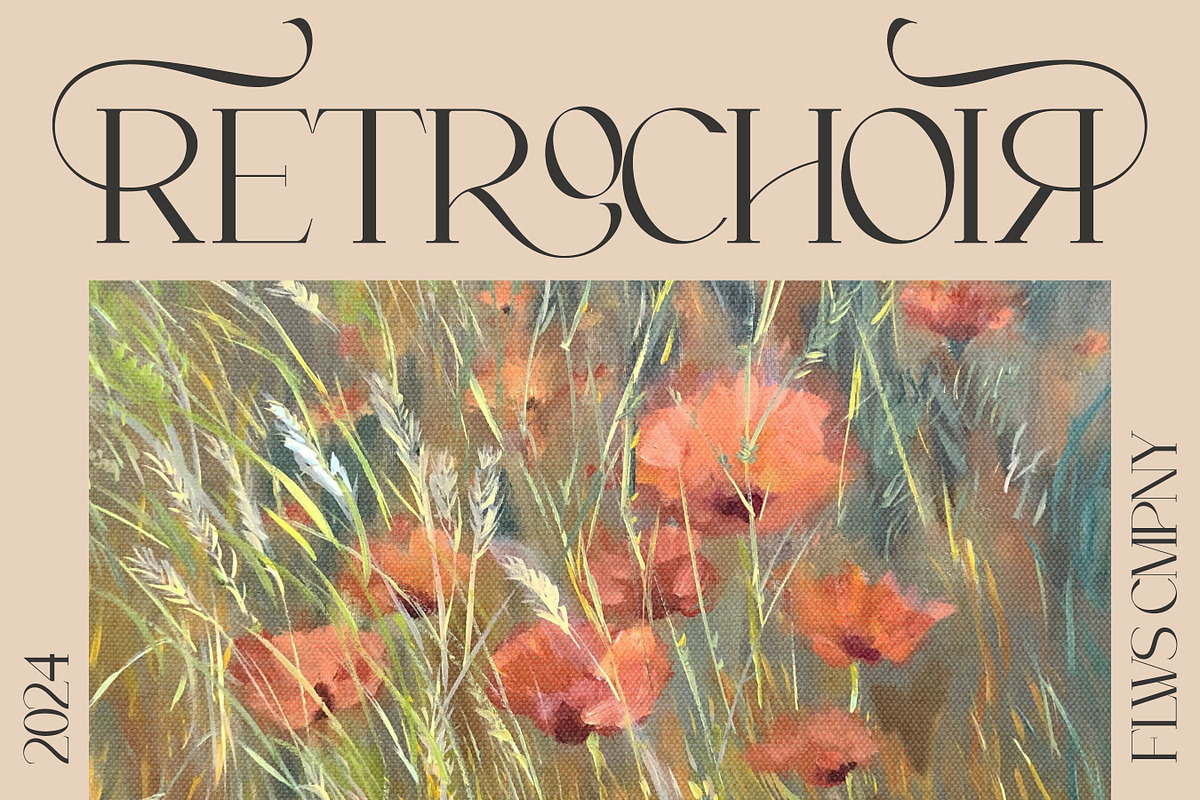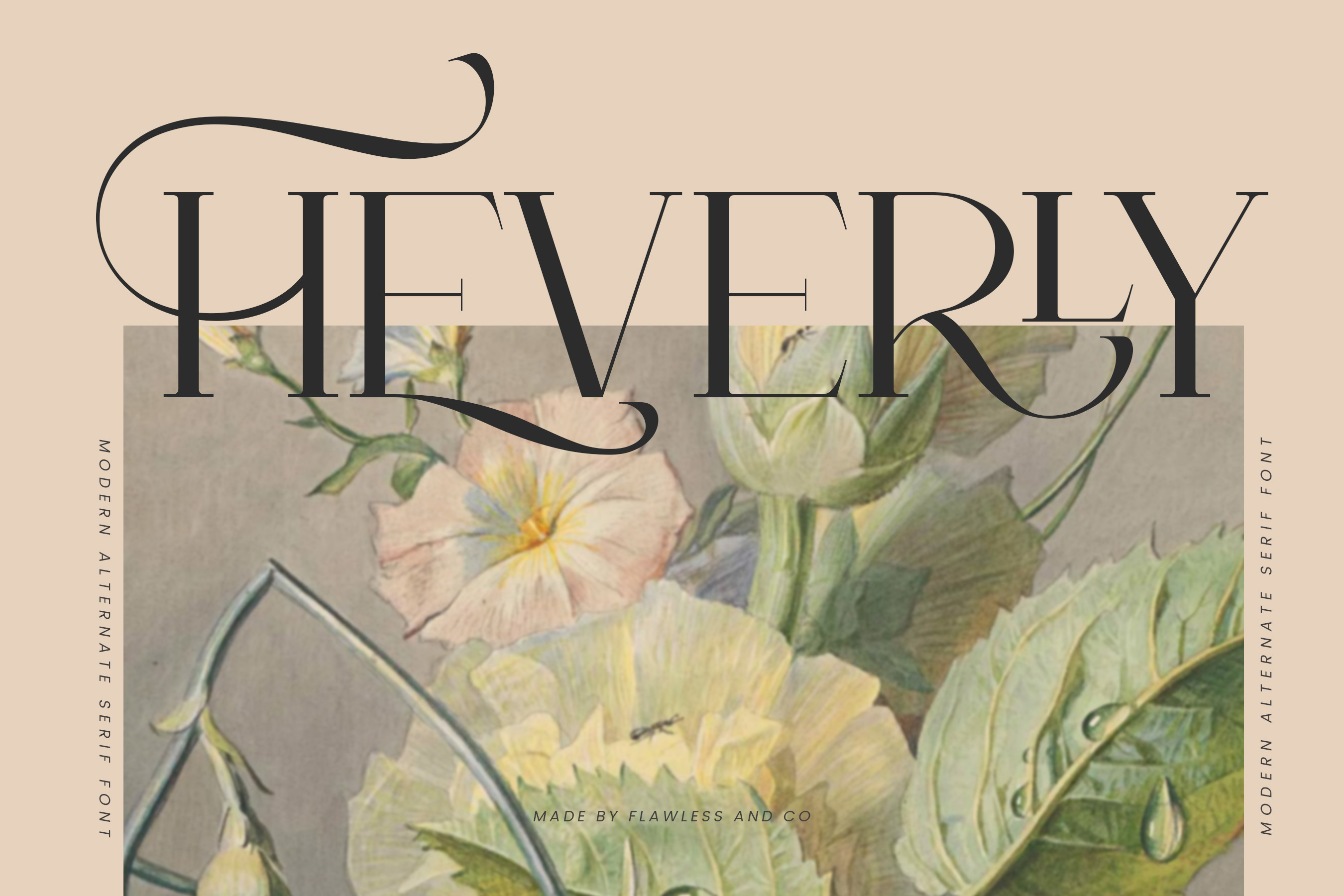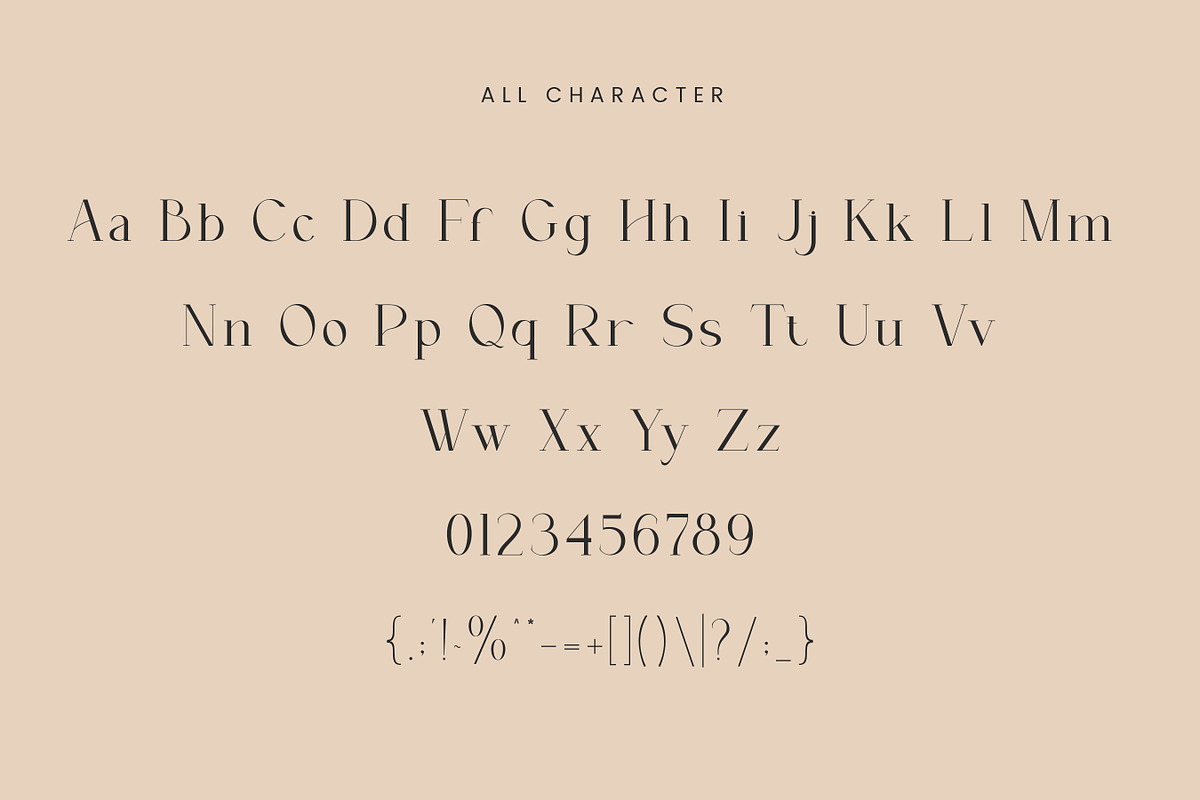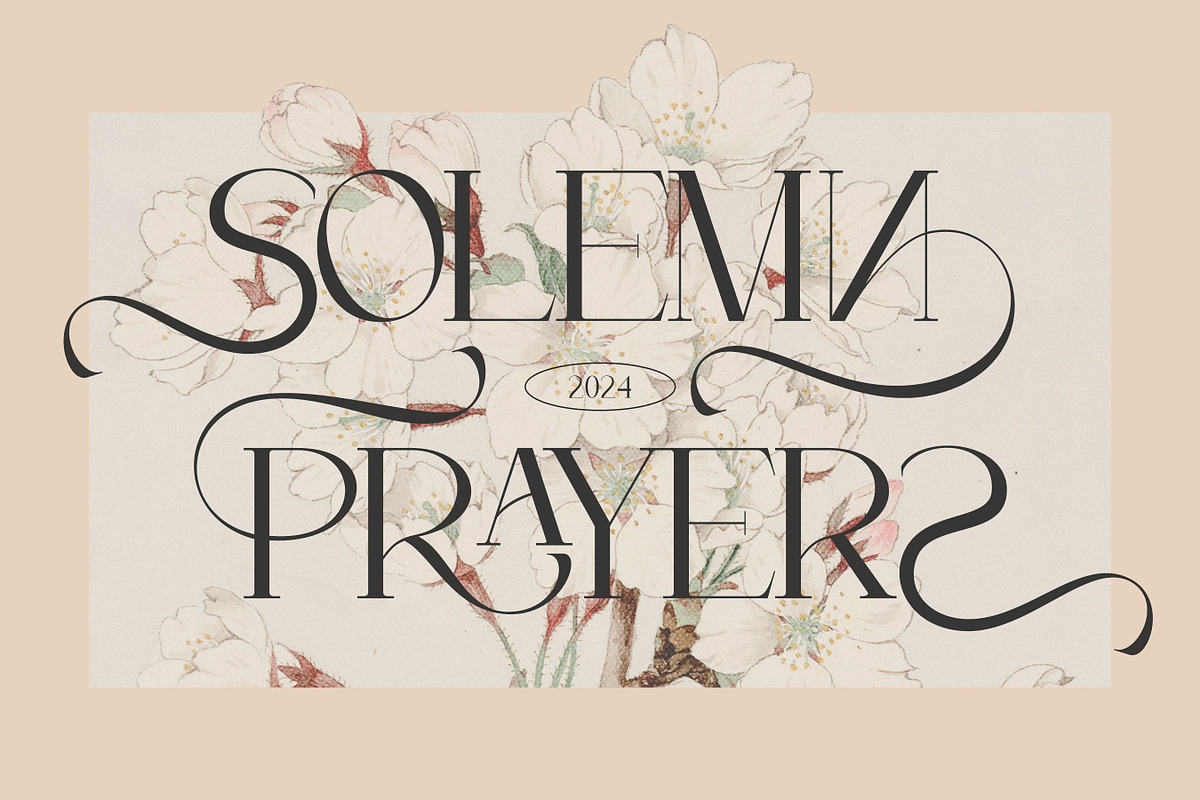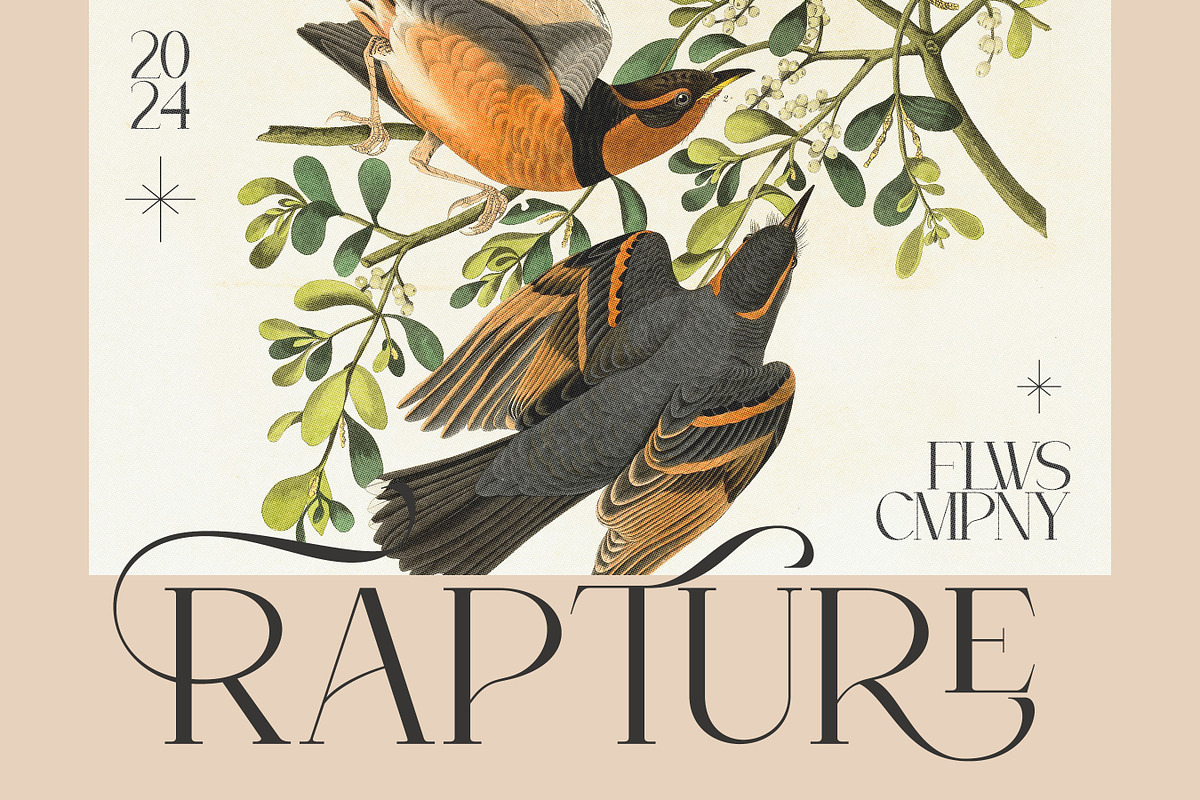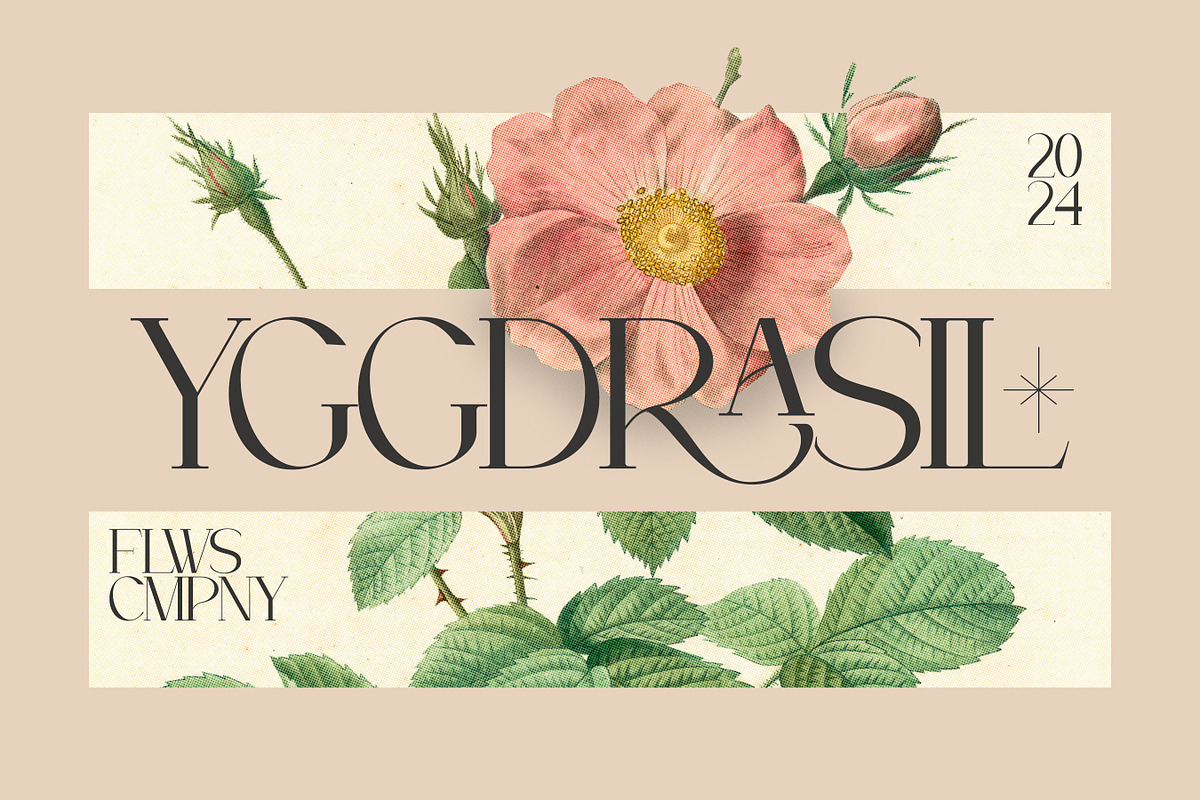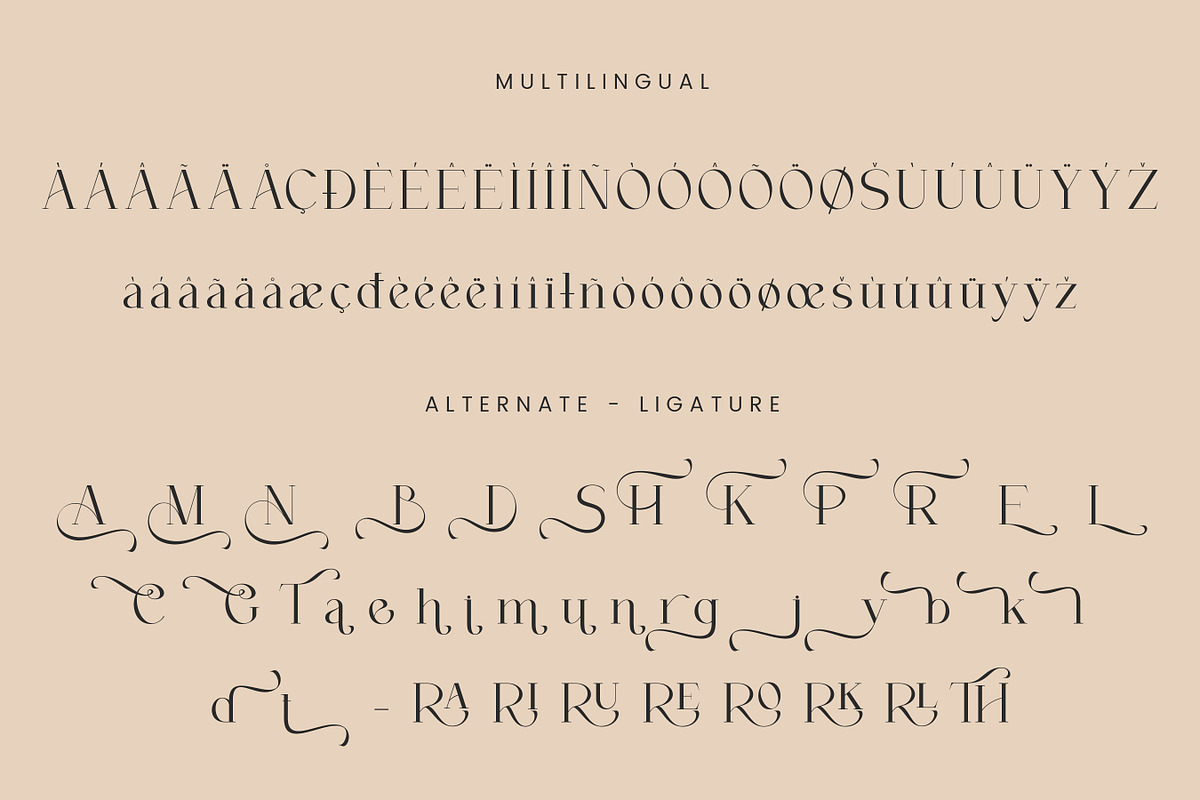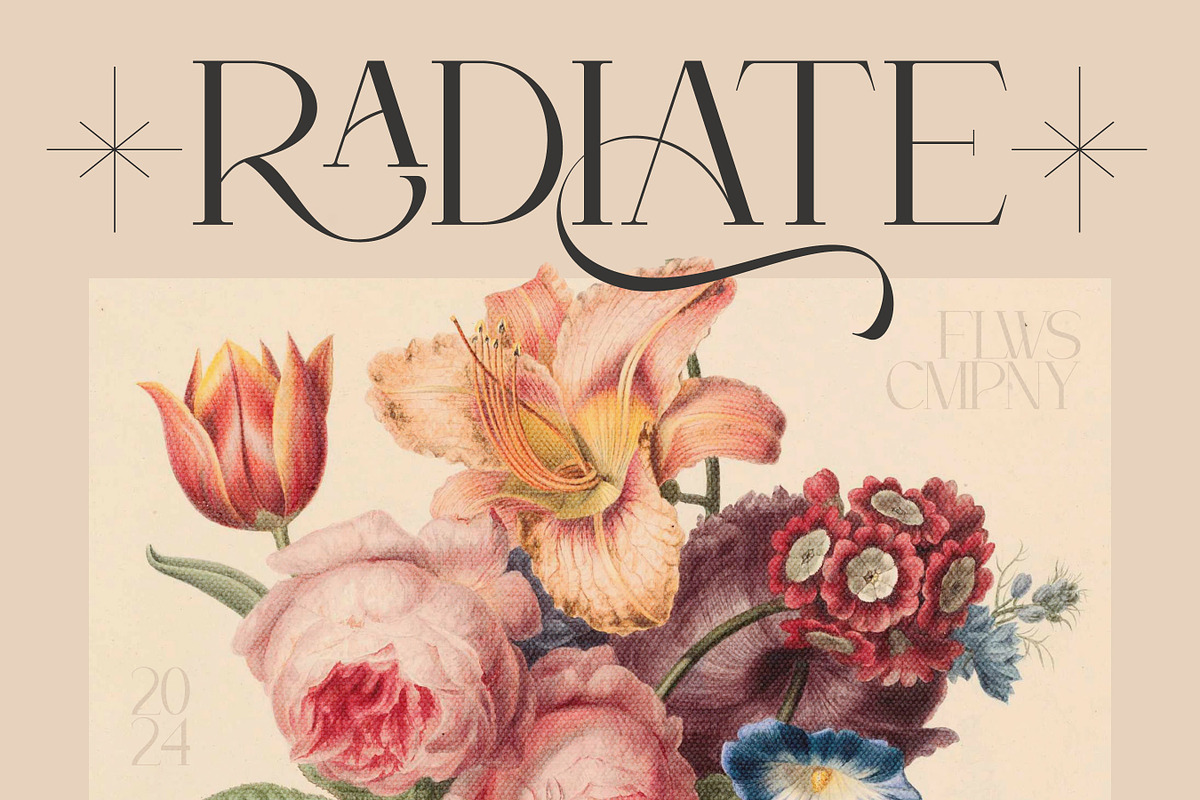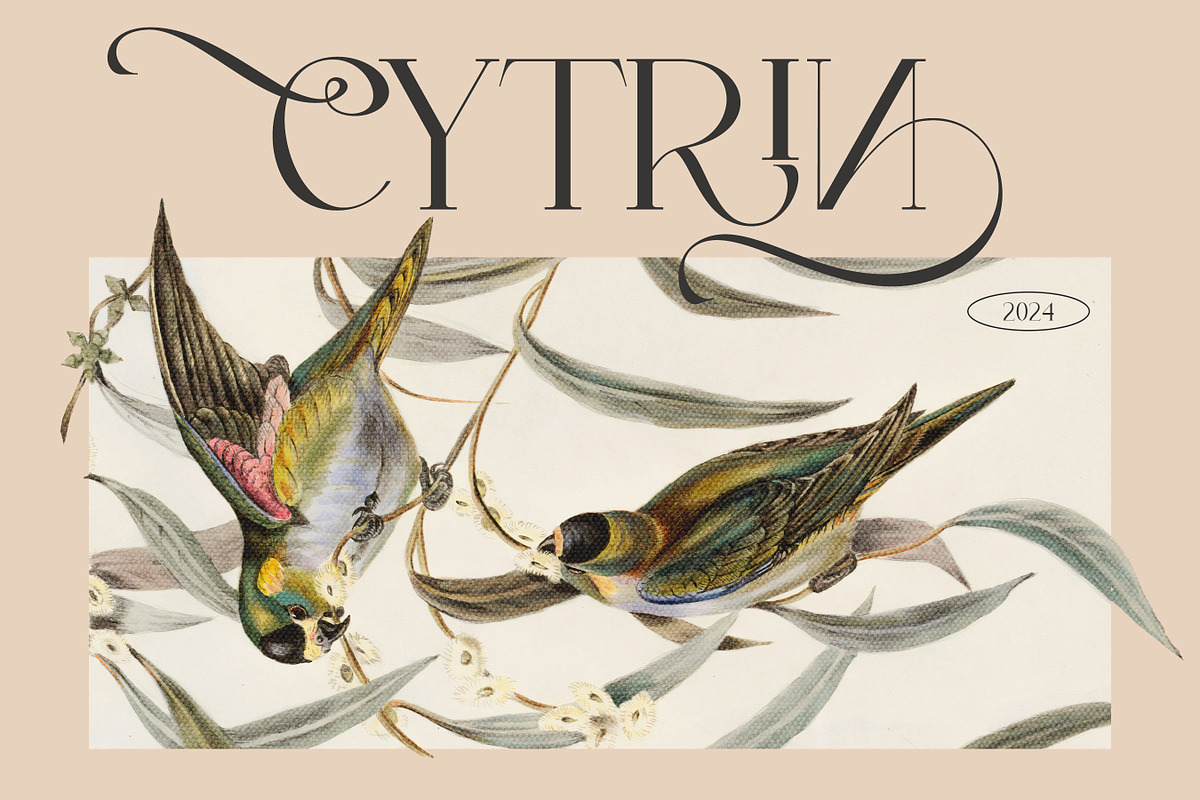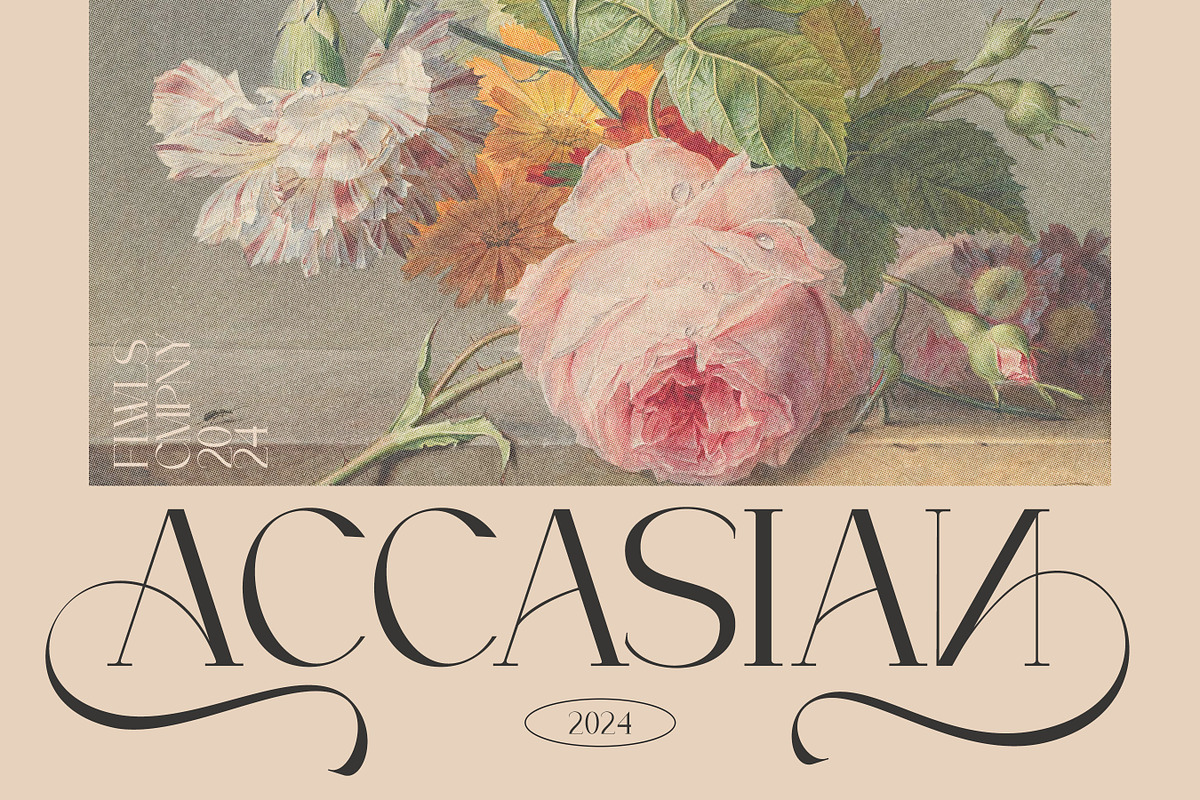
Heverly-Modern Alternate Serif Font
Introducing "Heverly" – A Modern Alternate Serif Typeface. Unleash the power of modernity intertwined with classic charm with "Heverly," a striking alternate serif font that goes beyond mere letters, offering a canvas for your creativity to flourish. This serif typeface is more than letters on a page; it's a journey into a world where every curve and line tells a story of both nostalgia and innovation.